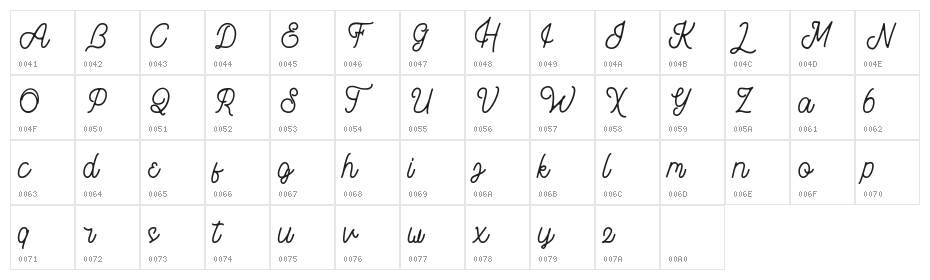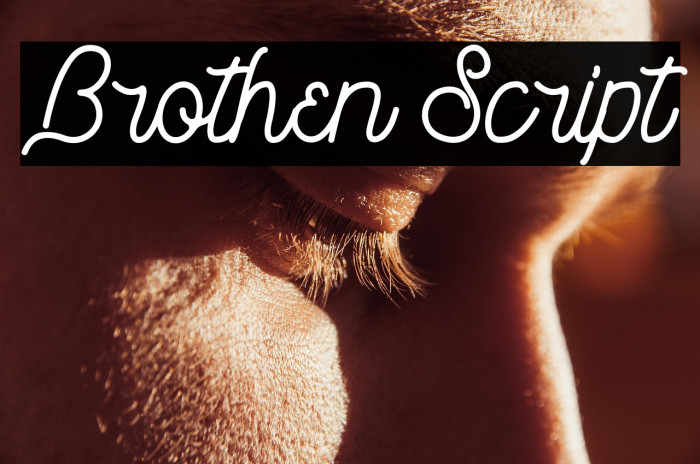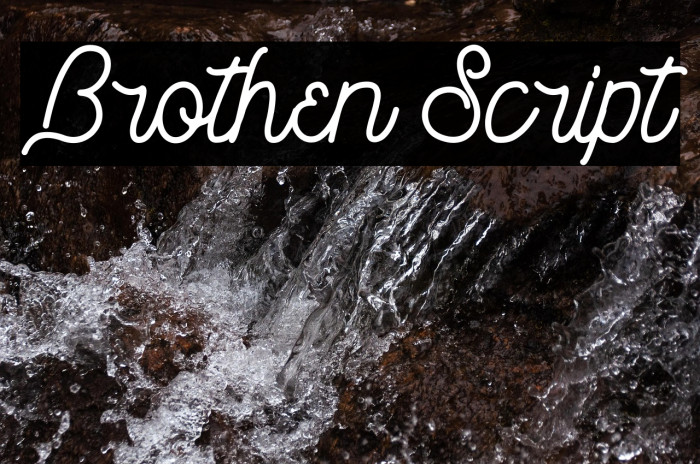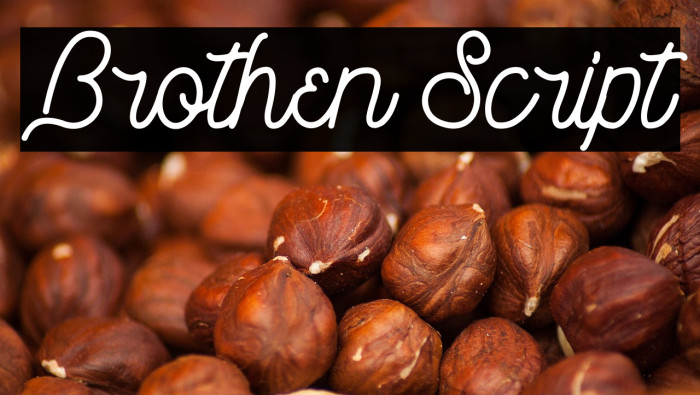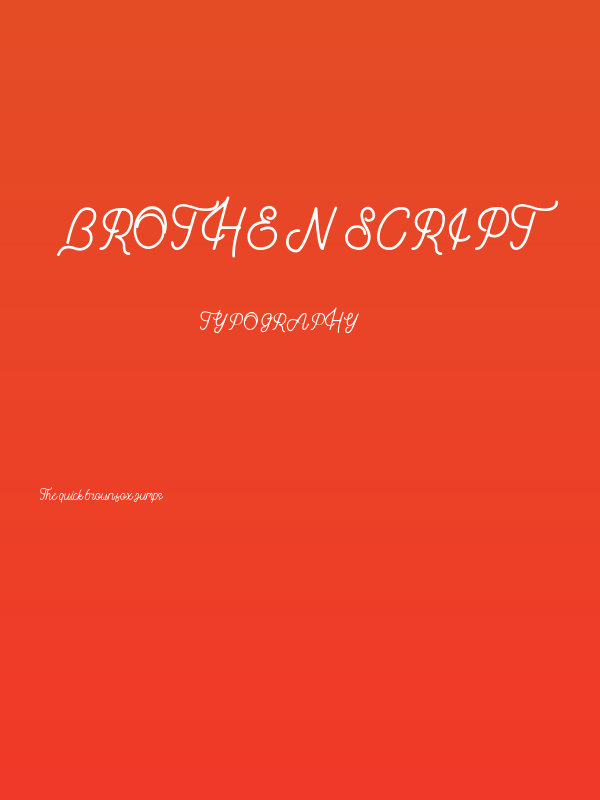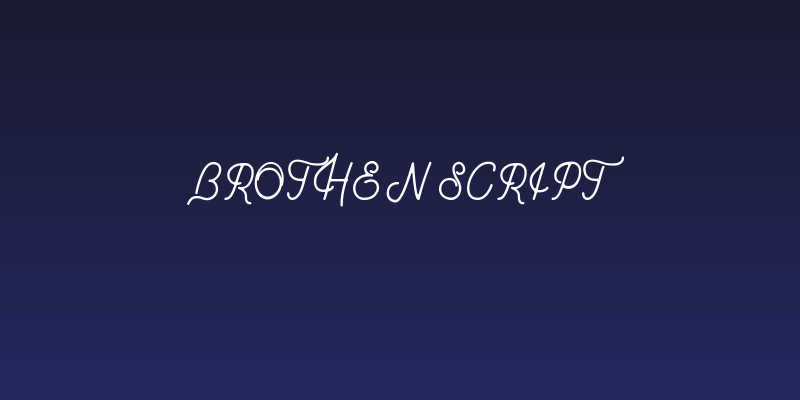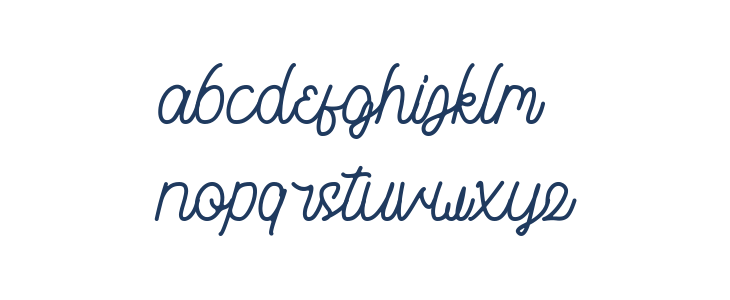
Brothen Script Font
Brothen Script Description
This elegant script font features a flowing, cursive style with smooth, connected strokes that mimic natural handwriting. The uppercase letters are gracefully looped and slightly slanted, while the lowercase letters maintain a consistent flow, enhancing readability. The font exudes a sense of sophistication and charm, making it ideal for formal invitations, elegant branding, and decorative purposes. The characters are evenly spaced, ensuring a balanced appearance across various applications. Its classic script style is both timeless and versatile, suitable for a wide range of design projects.
| Overall Style | Classic |
| Use Case | Headlines, Logos, Invitations |
| Proposed Projects | Ideal for wedding invitations, elegant branding, greeting cards, and decorative signage. |